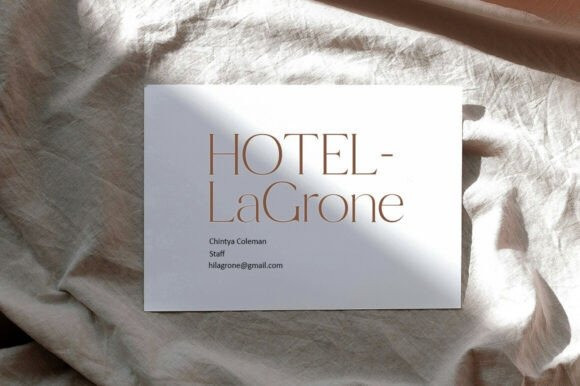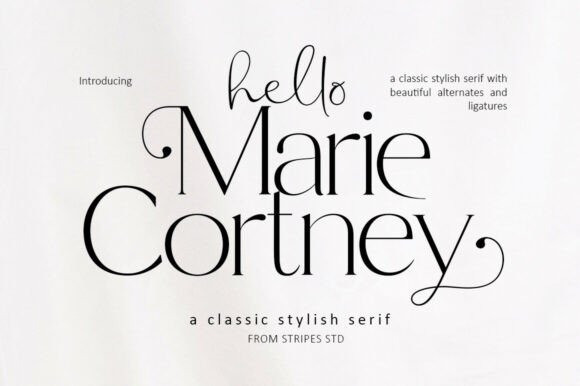
Marie Cortney Font
Marie Cortney Font is a flowing serif font, described by an elegant touch, perfect for your favorite projects. Fall in love with its incredibly distinct and timeless style and use it to create spectacular designs!